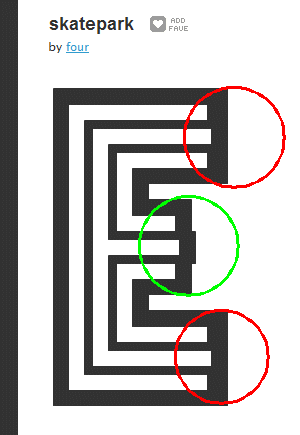
skatepark
This one refused to become a connected script...
Love it, great work!
Very creative. 10/10.
@four - Nice effect here. There seems to be a some inconsistency with the inner crossbars on a lot of the letters - some are flush (red) and some extend (green). It might have been an intentional choice, but I would like to see the extensions throughout...
It's a winner in its own category. 10/10
I don't think you even need to submit another entry ;).
Another fine use of fontstructor.
Great work here! Looks perfect at pixel size...
I love this inline approach 10
I can relate! I tried to make "Hazes Pagoda" look like a pagoda in the orient. It came out to be something totally different. However I agree, this one is a ten!
I love the multicolored sample, the drop shadow adds a bit of an extra splash, and the little "things" poking out of the middle lines of letters adds a nice extra effect to the whole piece.
Those little extensions really make this font.
That is too cool!!!! Very well done with it. I love the creativity.
GREAT GREAT GREAT !!!!! i want that font !! PLEEEEAAASSSEEEE